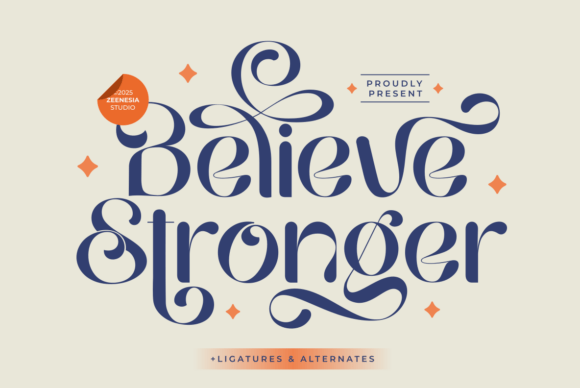
Introduction to Believestronger Regular Font
Believe Stronger is an elegant display font designed by Zeenesia Studio, blending classic sophistication with modern flair.
Its bold letterforms are adorned with sweeping swashes, smooth curves, and graceful ligatures, creating a luxurious and empowering visual presence This typeface is perfect for branding, logos, fashion headlines, inspirational quotes, and editorial design where beauty and boldness must coexist.